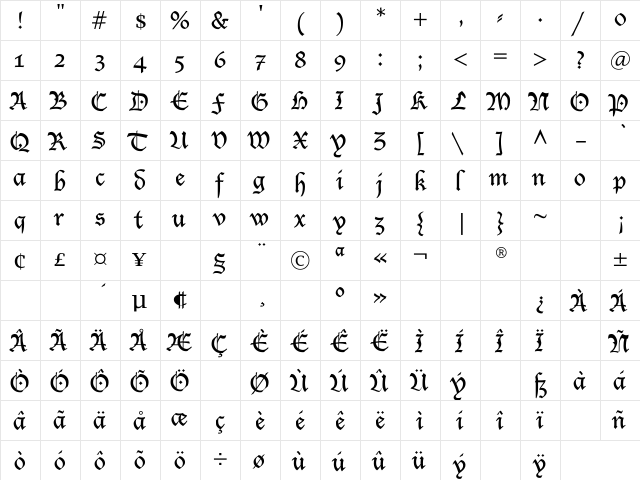
Lucerne Fancy Regular
Design Context for Lucerne Fancy Typeface
Lucerne Fancy is a composed and adaptable typeface that performs quietly and consistently across a wide range of design contexts.